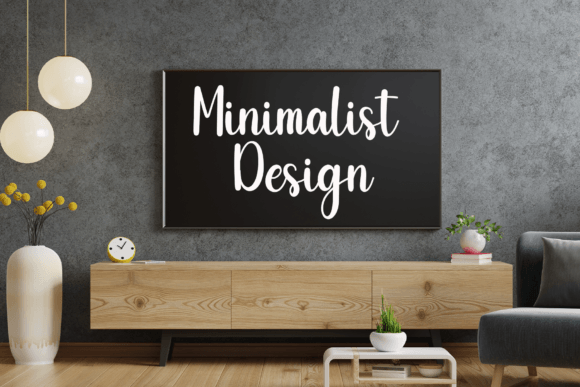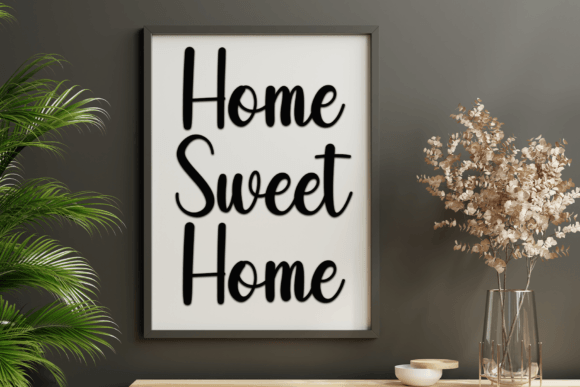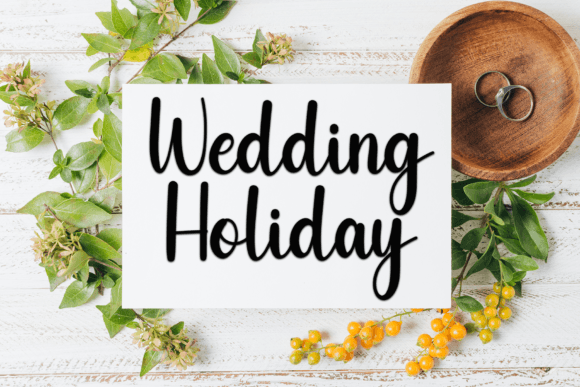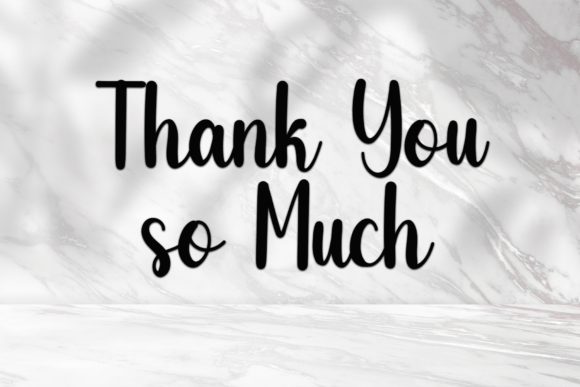
Introducing Briefing Font: The Enchanting Handwritten Font for Your Creative Projects
Are you looking for a font that can add a touch of romance and whimsy to your designs? Look no further than Briefing Font, a beautiful handwritten font that is perfect for a wide range of creative projects. From greeting cards to headlines, Briefing Font is a versatile and enchanting addition to any design.
The Characteristics of Briefing Font
Briefing Font is a carefully crafted handwritten font that boasts a unique and captivating charm. Its elegant and flowing lines are reminiscent of traditional handwriting, making it perfect for designs that require a personal touch. The font features:
- Delicate letterforms: Each letter in Briefing Font is meticulously designed to showcase a delicate and refined aesthetic.
- Flowing connections: The font’s connections between letters are smooth and fluid, creating a sense of movement and fluidity.
- Romantic feel: Briefing Font exudes a romantic and whimsical feel, making it perfect for designs that require a touch of elegance and sophistication.
Applications of Briefing Font
One of the best things about Briefing Font is its versatility. This enchanting font can be used in a wide range of creative projects, including:
- Greeting cards: Add a personal touch to your greeting cards with Briefing Font’s elegant and refined letterforms.
- Headlines: Use Briefing Font to create eye-catching headlines that are sure to capture the attention of your audience.
- Invitations: Make your invitations stand out with Briefing Font’s romantic and whimsical feel.
- Branding: Use Briefing Font to add a touch of elegance and sophistication to your brand’s identity.
Why Choose Briefing Font?
With so many fonts available, why choose Briefing Font for your creative projects? Here are just a few reasons:
- Unique and captivating: Briefing Font is a one-of-a-kind font that is sure to capture the attention of your audience.
- Versatile: Briefing Font can be used in a wide range of creative projects, from greeting cards to headlines.
- Elegant and refined: Briefing Font’s delicate letterforms and flowing connections make it perfect for designs that require a touch of elegance and sophistication.
Tips for Using Briefing Font
To get the most out of Briefing Font, here are a few tips to keep in mind:
- Use it sparingly: Briefing Font is a statement font, so use it sparingly to add emphasis and create visual interest.
- Pair it with other fonts: Briefing Font pairs well with other fonts, so don’t be afraid to experiment with different combinations.
- Experiment with colors: Briefing Font looks great in a variety of colors, so don’t be afraid to experiment and find the perfect hue for your design.
In conclusion, Briefing Font is a beautiful and enchanting handwritten font that is perfect for a wide range of creative projects. Its elegant and refined letterforms, flowing connections, and romantic feel make it a versatile and captivating addition to any design. Whether you’re a designer, crafter, or DIY enthusiast, Briefing Font is sure to add a touch of whimsy and elegance to your next project.